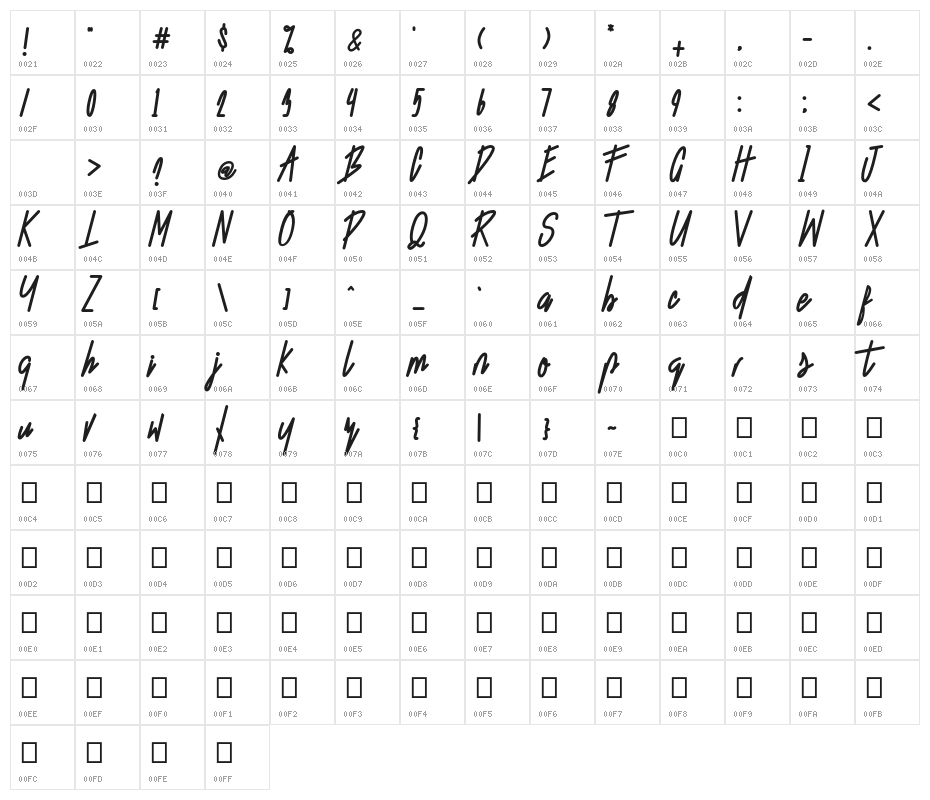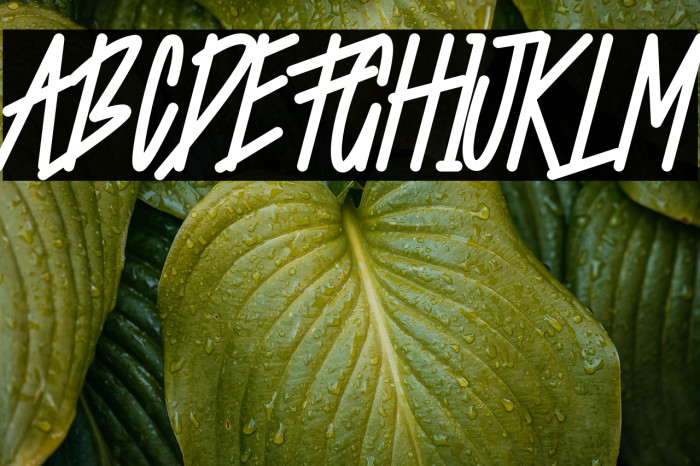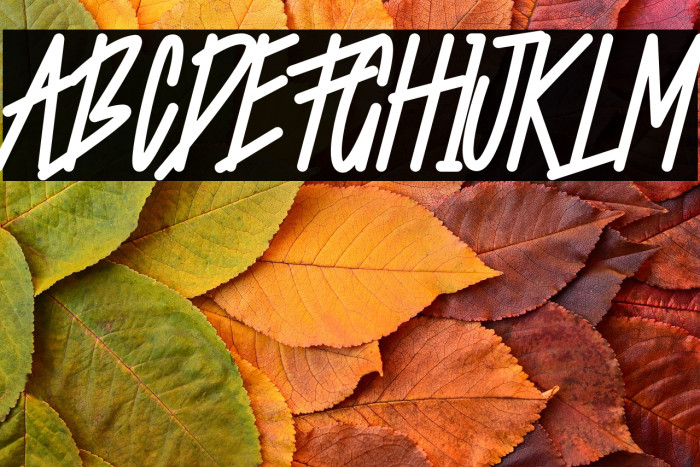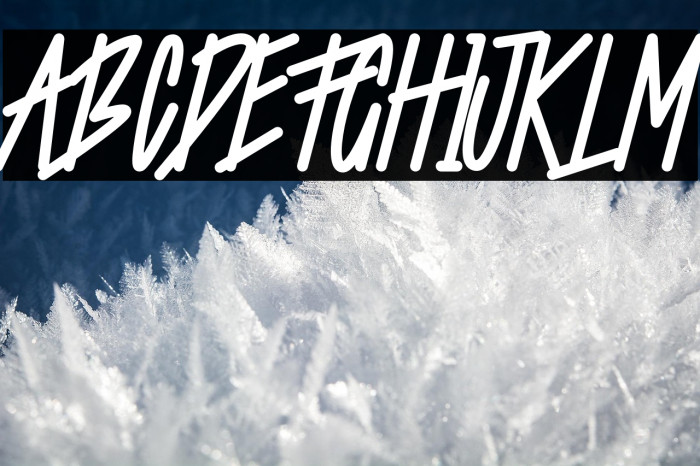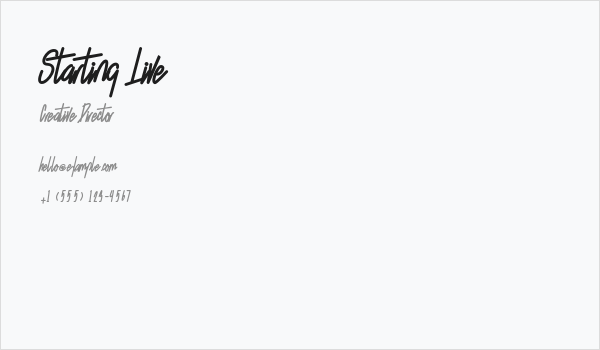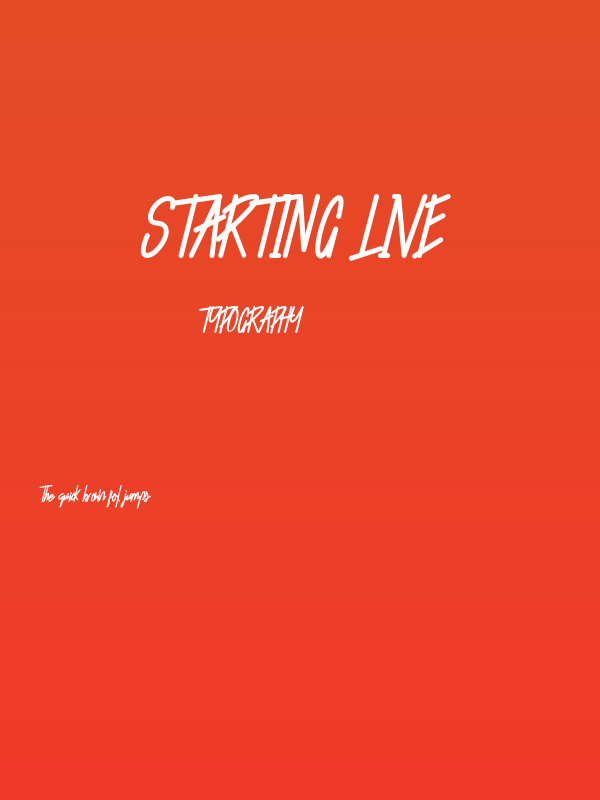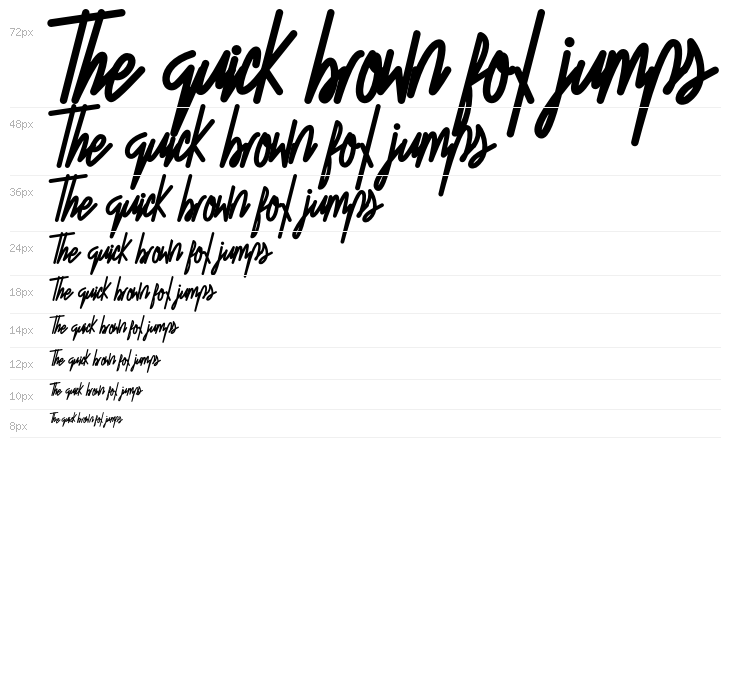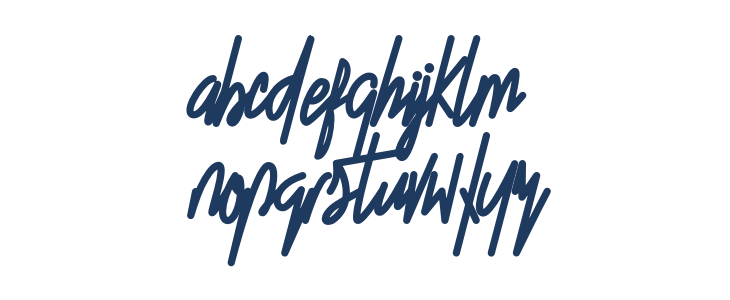
Starting Live Font
Starting Live Description
This font features a dynamic and energetic script style, characterized by its slanted, handwritten appearance. The letters are connected, creating a fluid and continuous flow that mimics natural handwriting. The uppercase letters are tall and narrow, while the lowercase letters maintain a consistent height, enhancing readability. The numbers and special characters follow the same style, ensuring a cohesive look across all text. The strokes are bold, with a medium contrast between thick and thin lines, adding to the font's expressive nature.
| Proposed Projects | Ideal for creative projects such as logos, branding, invitations, and posters where a personal, artistic touch is desired. |